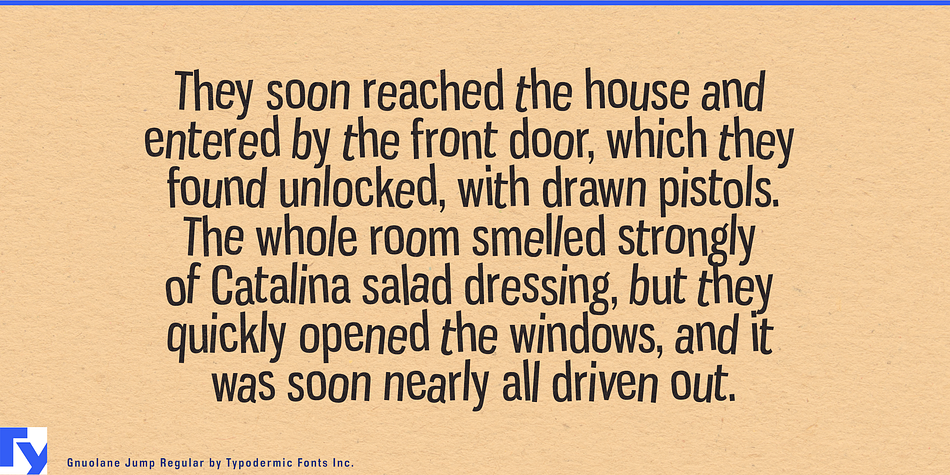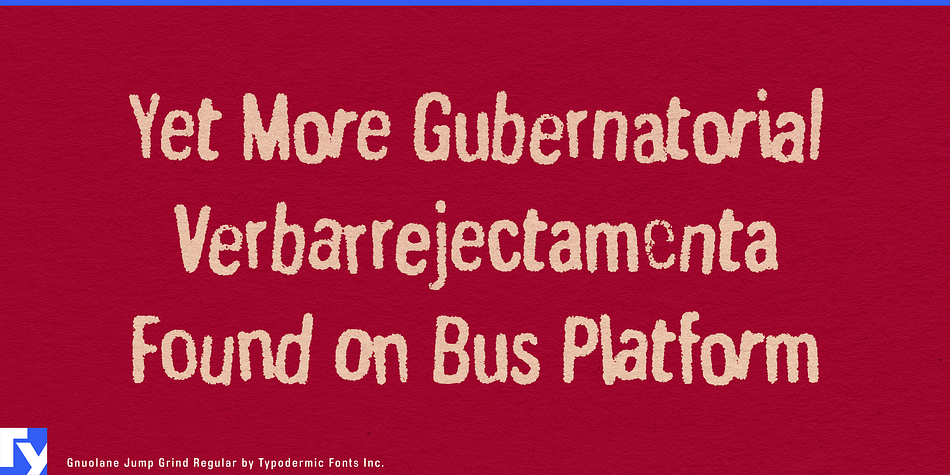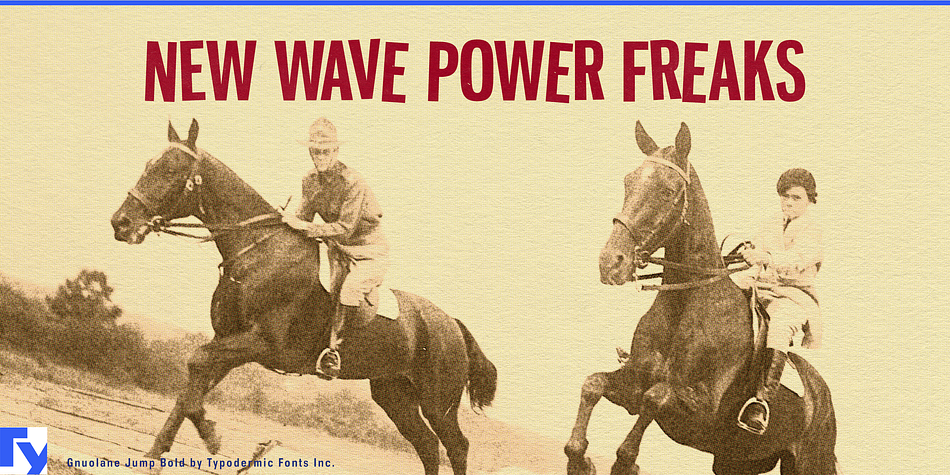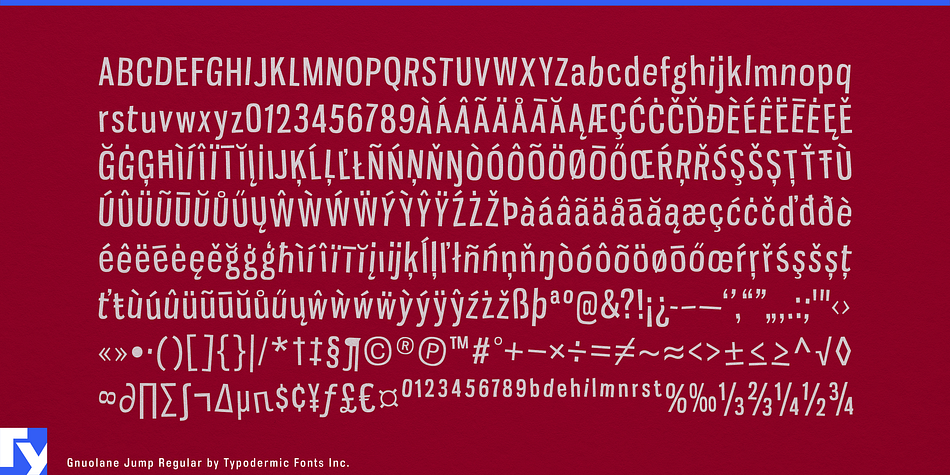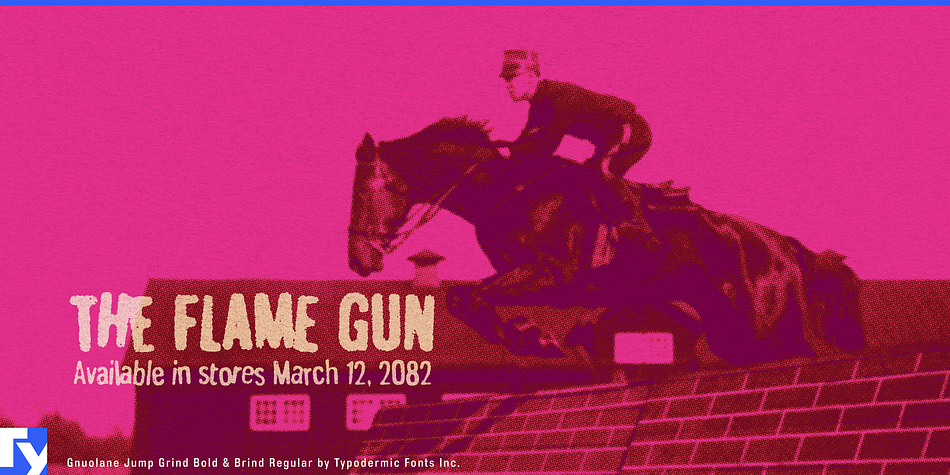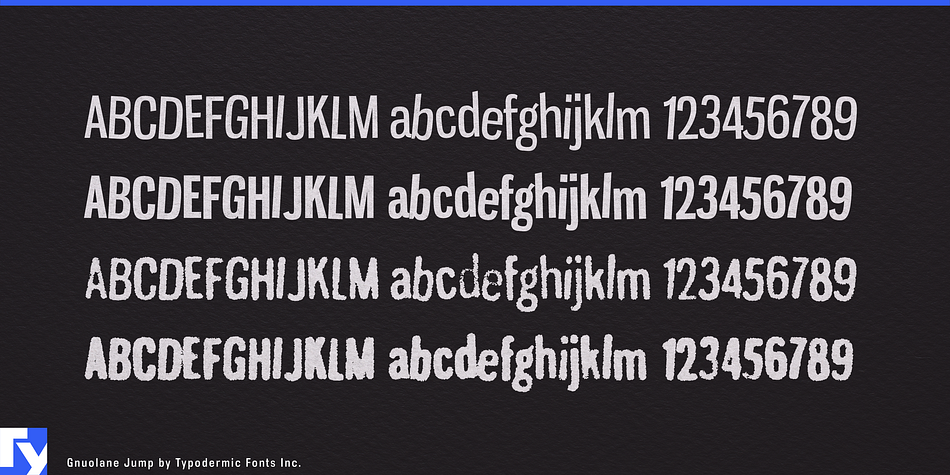
Gnuolane Jump is a grunge, novelty and kids font family. This typeface has four styles and was published by Typodermic Fonts Inc.
Gnuolane is a not-so-serious headline font. While it borrows from 19th Century grotesque models, it possesses a superelliptical sixties sneer.